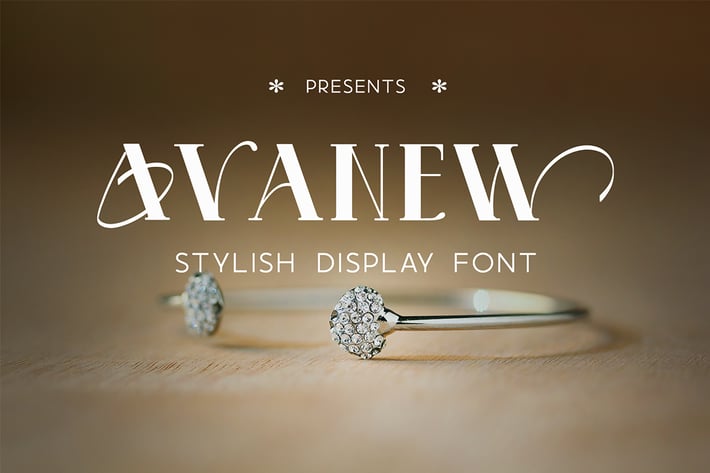
Avanew - Display Font
Introducing Avanew , an elegant, luxury, and beauty serif font. Its unique and lovely feel.
So perfect for you who needs a typeface for logo designs, magazine, social media, brochure, and many more.
+ Uppercase
+ Alternate Of A, B, C, M, N, Q, and W